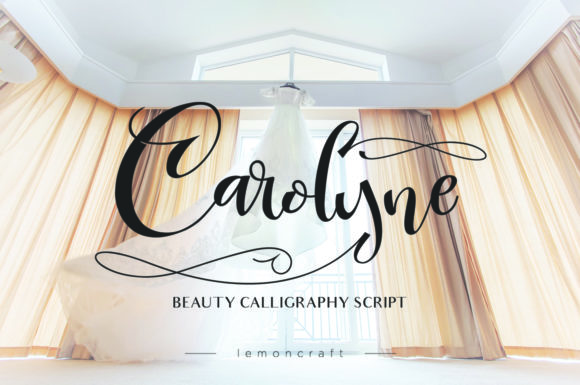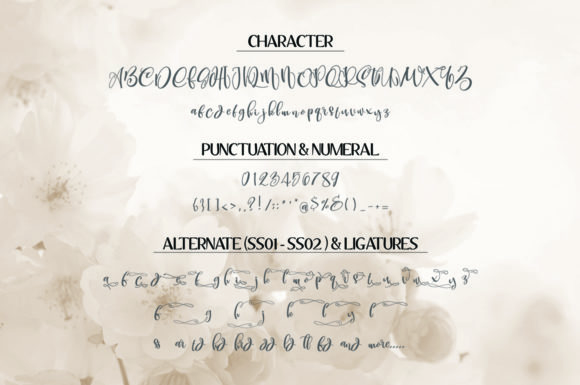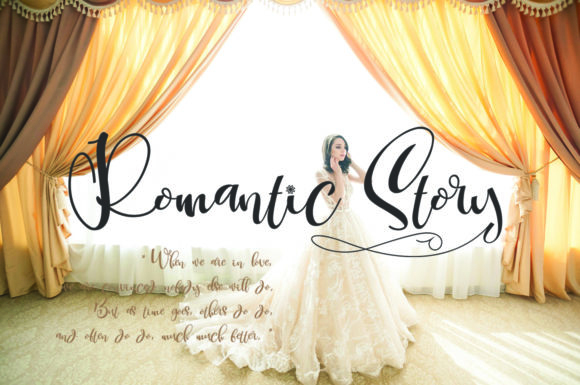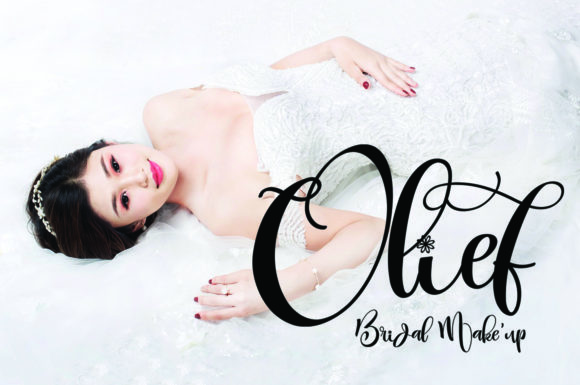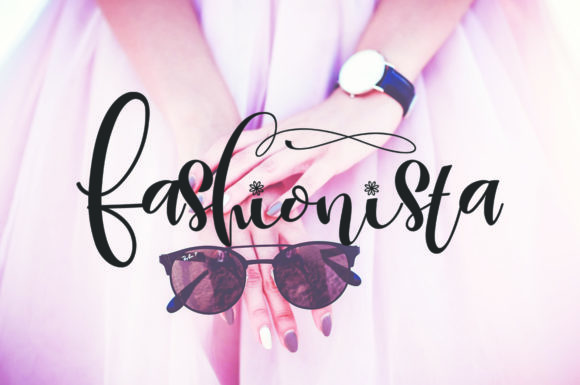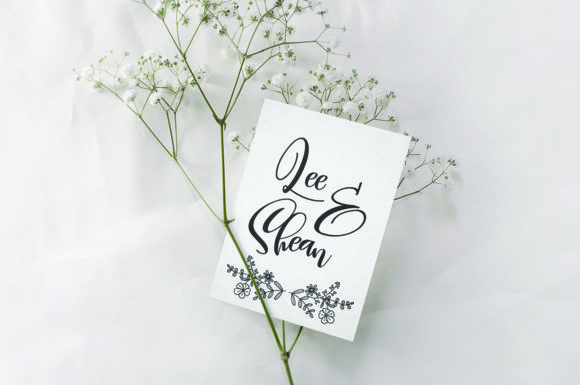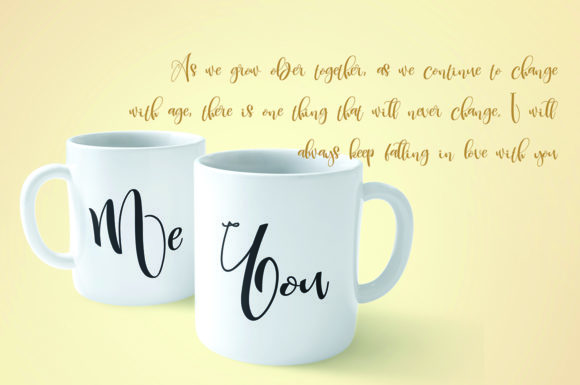
Carolyne Font
About Carolyne Font
The Carolyne is a smooth handwritten script. It has an elegant and feminine style which can be used for bridal & wedding designs, name cards, invitations, and every other design which needs a sprinkle of elegance!